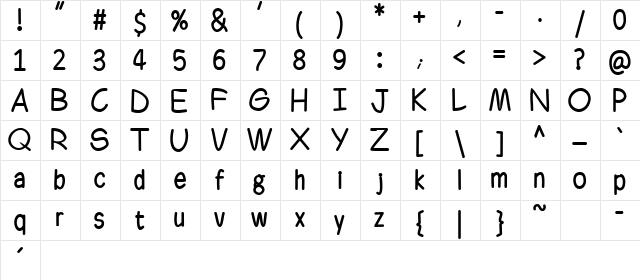
Ferrero Rocker Regular
| Designer | Letterara 2019 |
Ferrero Rocker takes a measured approach to typography — its balanced proportions and neutral character make it a reliable workhorse for both digital and print work.